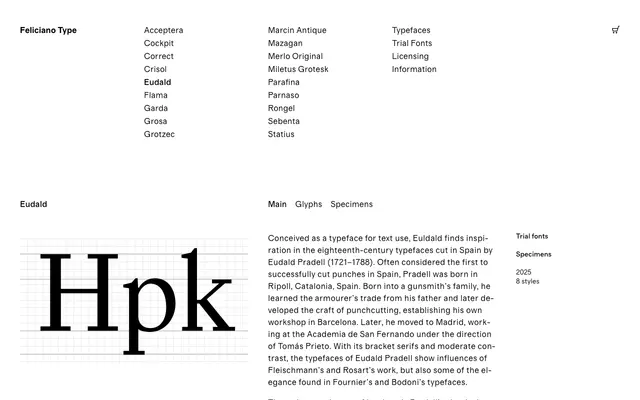
Eudald News
A text typeface rooted in the 18th-century Spanish punchcutter Eudald Pradell, distilled into four weights with italics and small caps for contemporary use.
Drawing on the work of Eudald Pradell (1721–1788), often credited as the first to successfully cut type punches in Spain, this revival absorbs Fleischmann and Rosart influences alongside the elegance of Fournier and Bodoni. Four weights run from Regular to Bold, each with matching italics, and the family includes extended character sets with small caps for both roman and italic styles. The result is a historically grounded text face suited to editorial and book work where warmth and classical proportion matter.
Inspired by the 18th-century Spanish punchcutter Eudald Pradell, who showed influences from Fleischmann, Rosart, Fournier and Bodoni, placing it squarely in transitional serif territory with bracket serifs and moderate contrast.